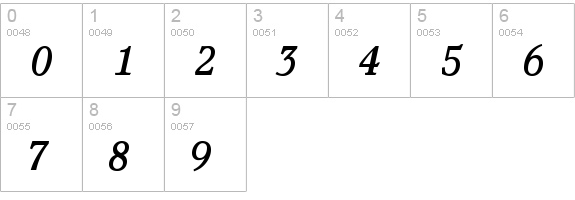
AT Pacella Medium Italic Font Details
AT Pacella Medium Italic is a balanced, medium-weight, italic variant in the AT typeface family \xE2\x80\x94 well suited to sub-headlines, navigation, and balanced editorial work.
The AT Pacella Medium Italic font exudes a perfect balance of elegance and modernity. Its sleek design and subtle slant create a sense of sophistication, making it ideal for a wide range of design projects. The italicized style adds a touch of flair and personality, making your text stand out with a unique charm. What's even better is that the AT Pacella Medium Italic font is available for free download at FontsMarket.com. This means you can easily incorporate this stylish typeface into your designs without having to worry about any additional costs. With its versatility and timeless appeal, the AT Pacella Medium Italic font is sure to elevate your projects to new heights.